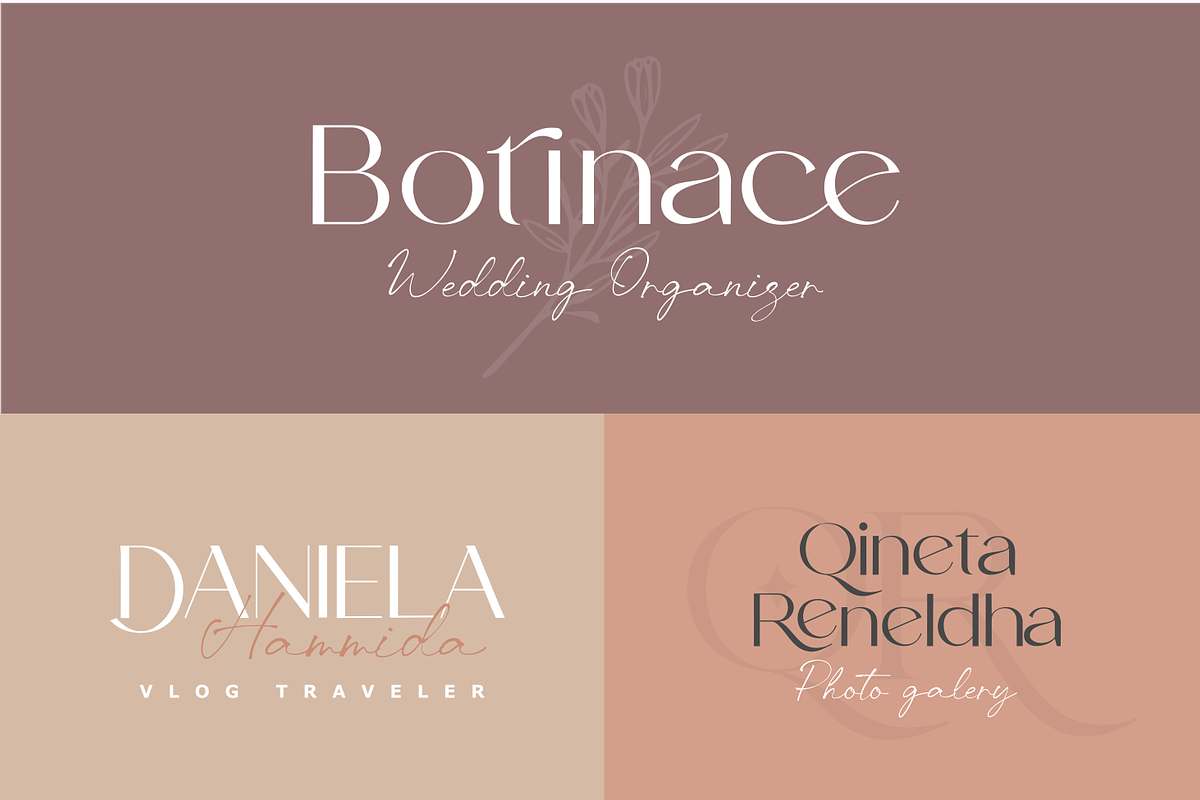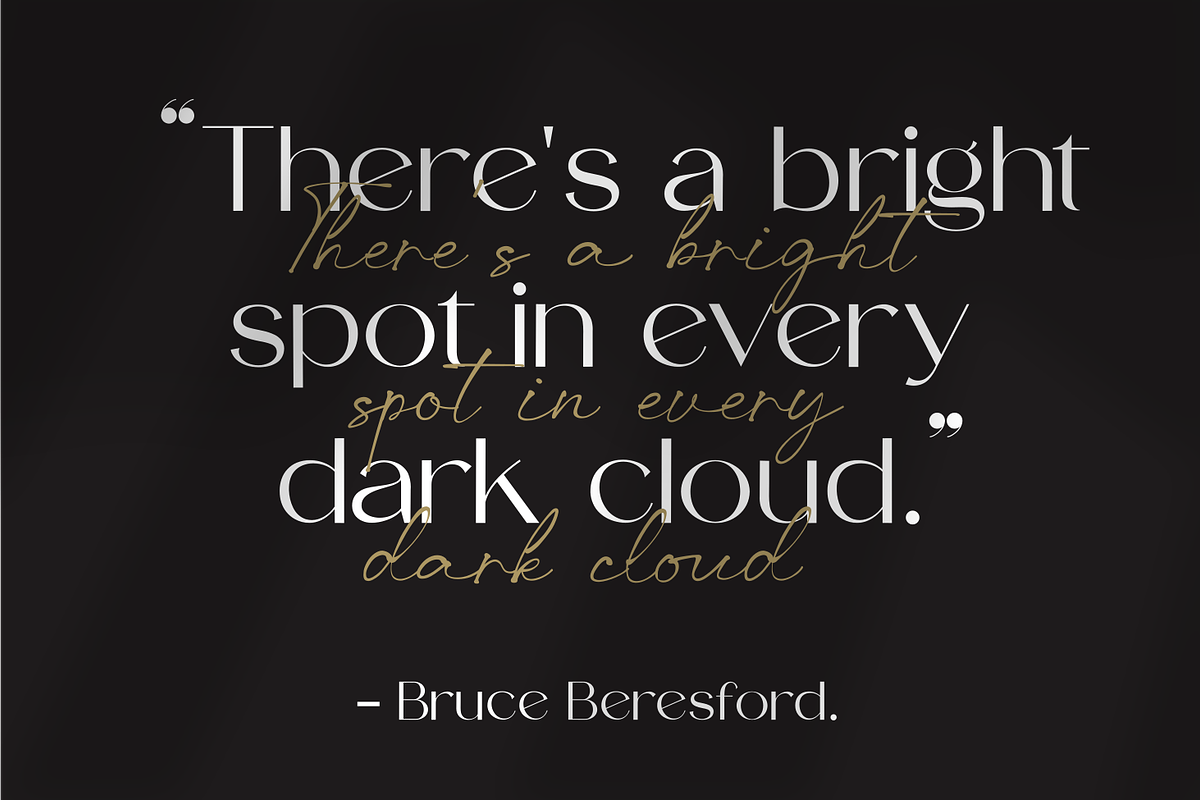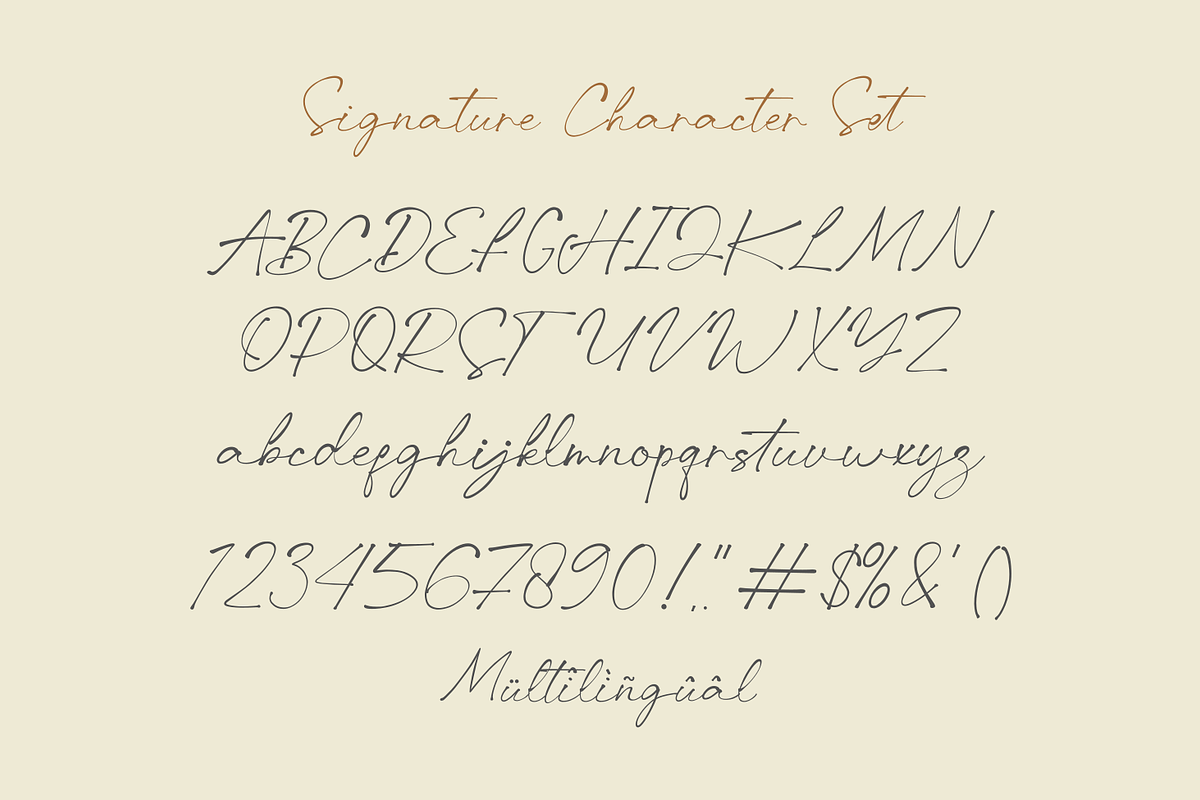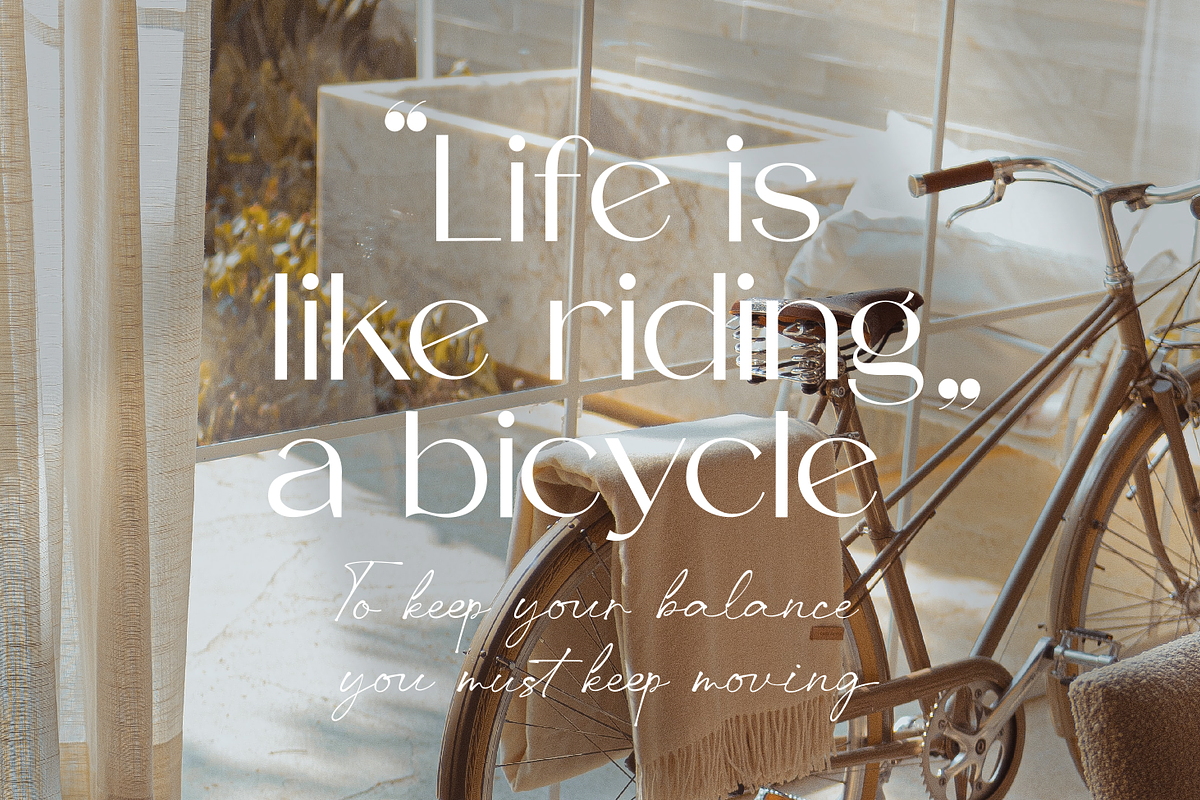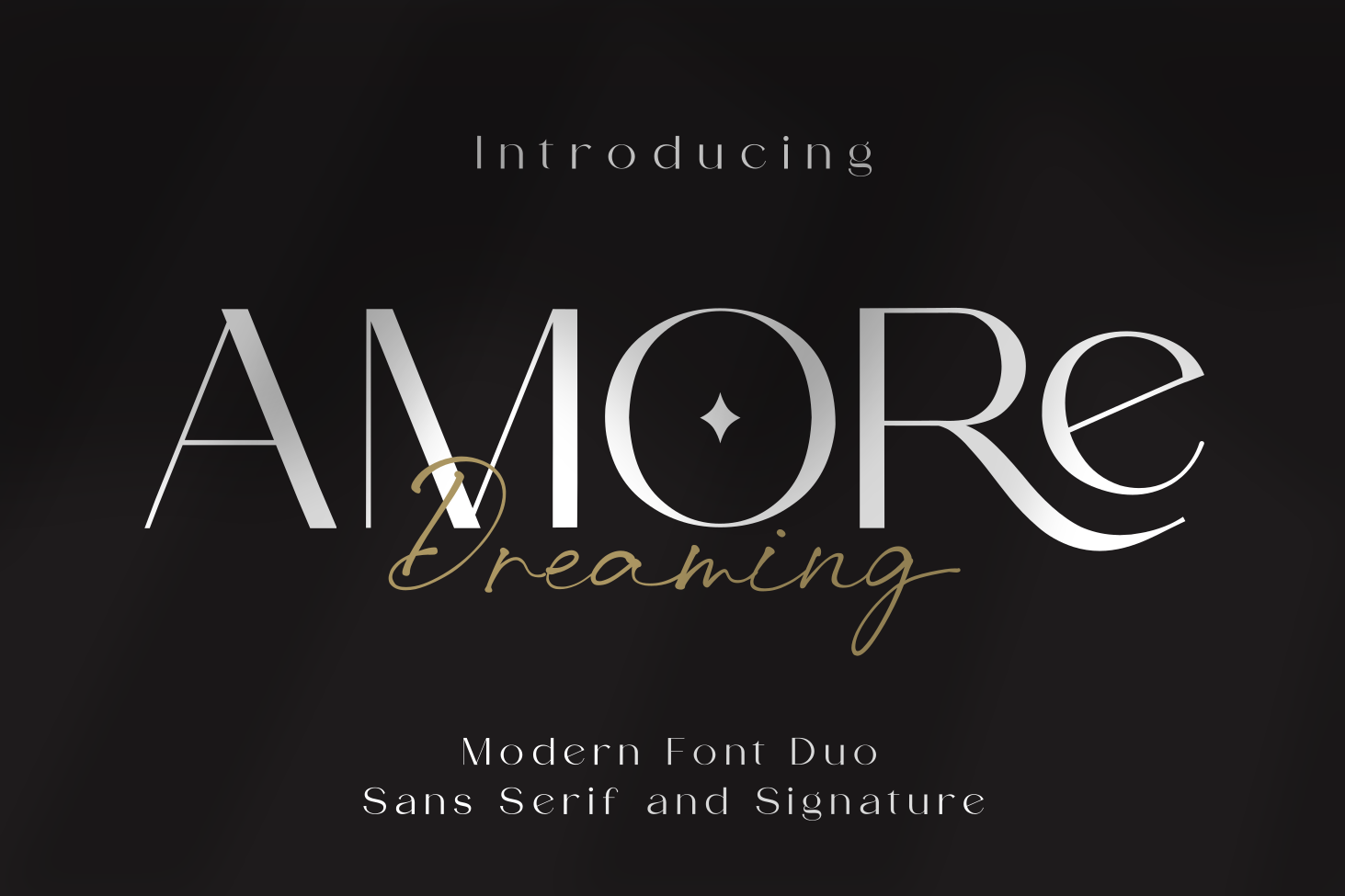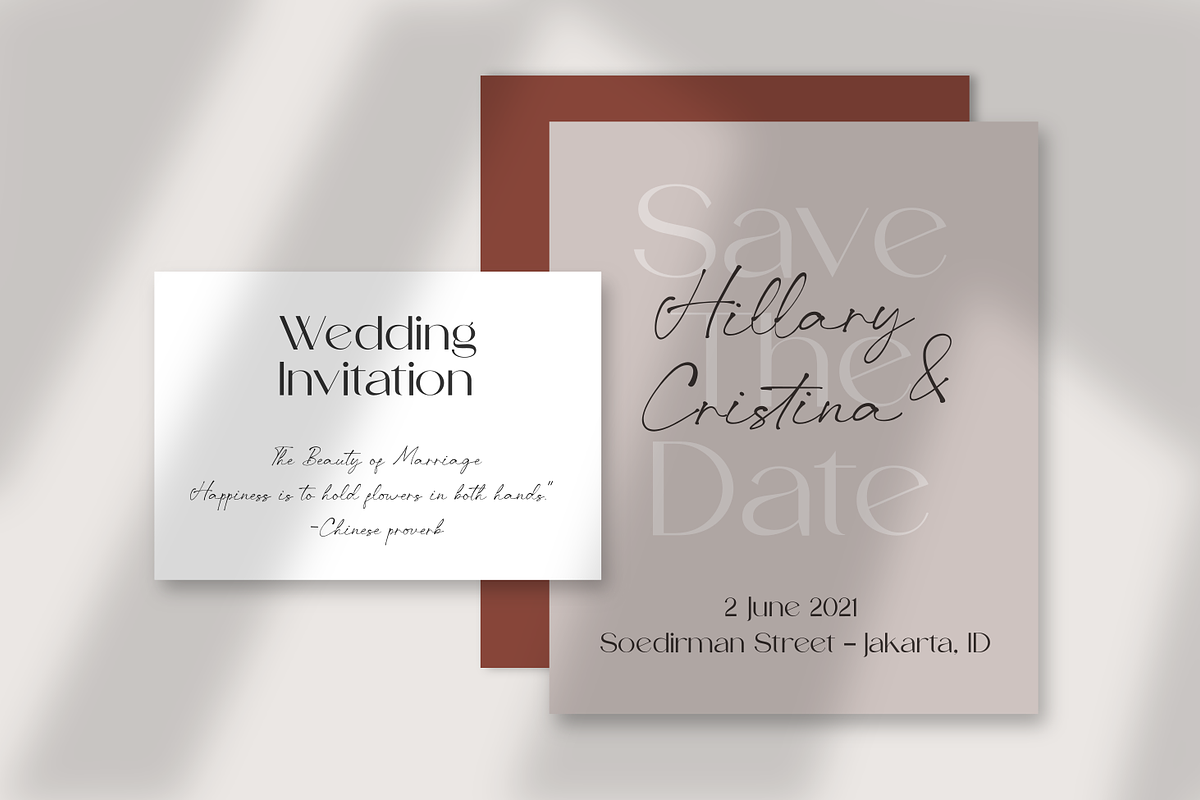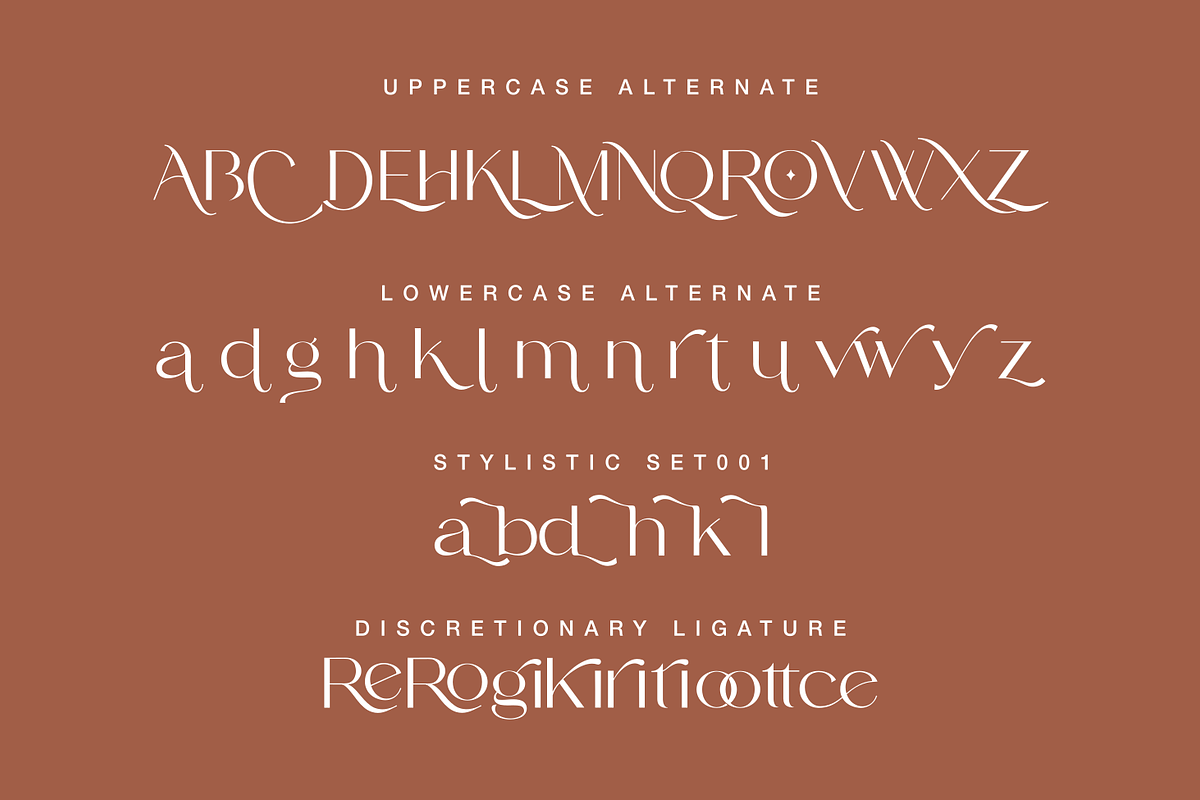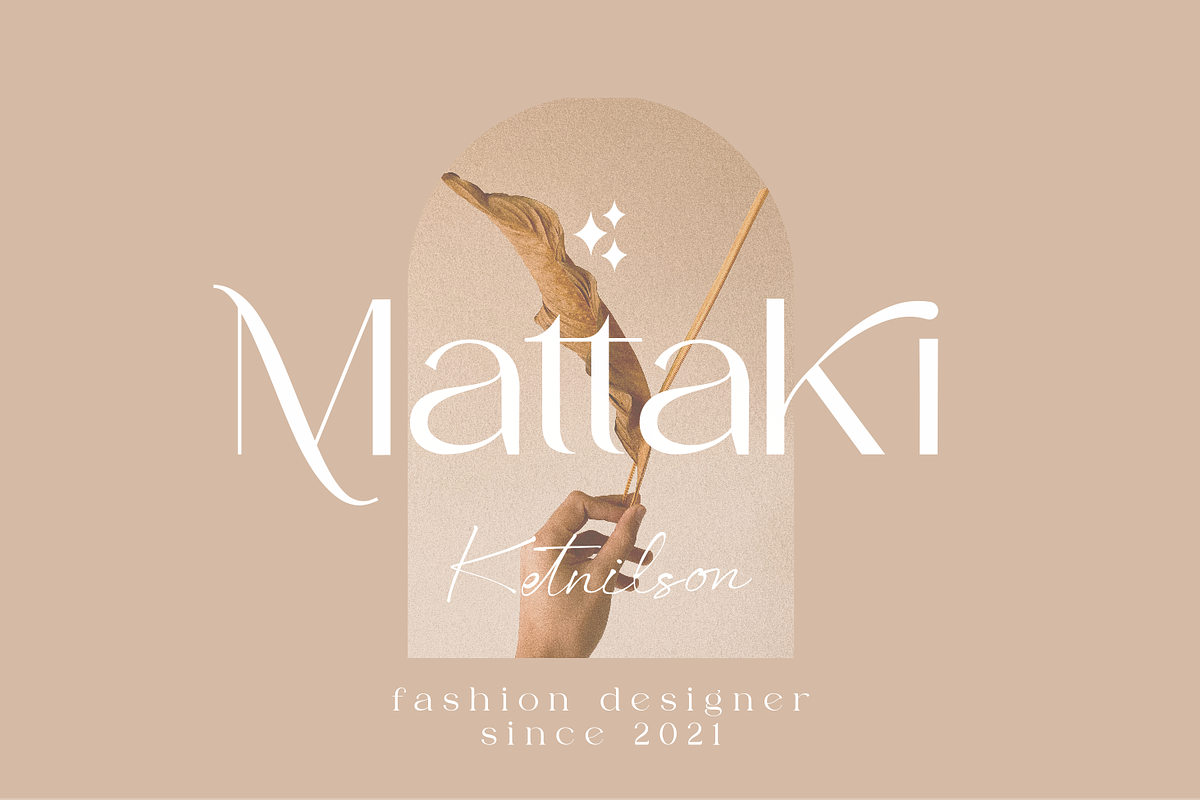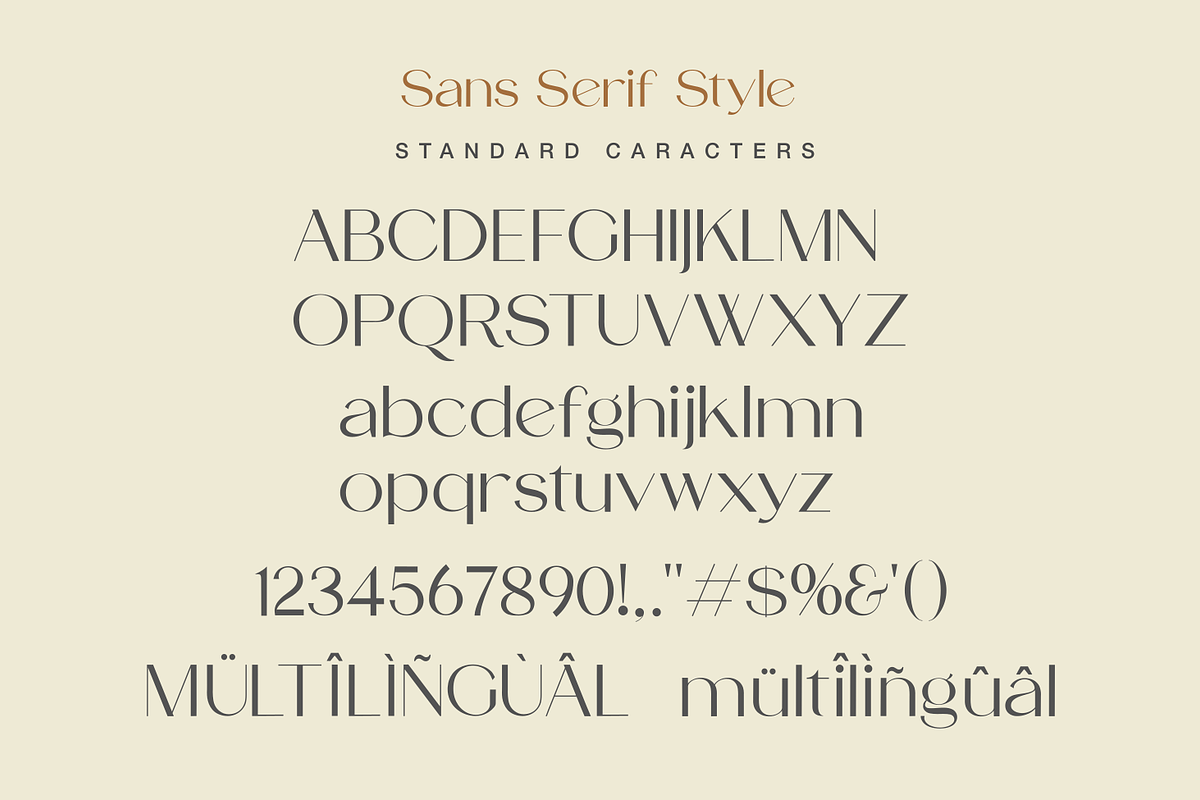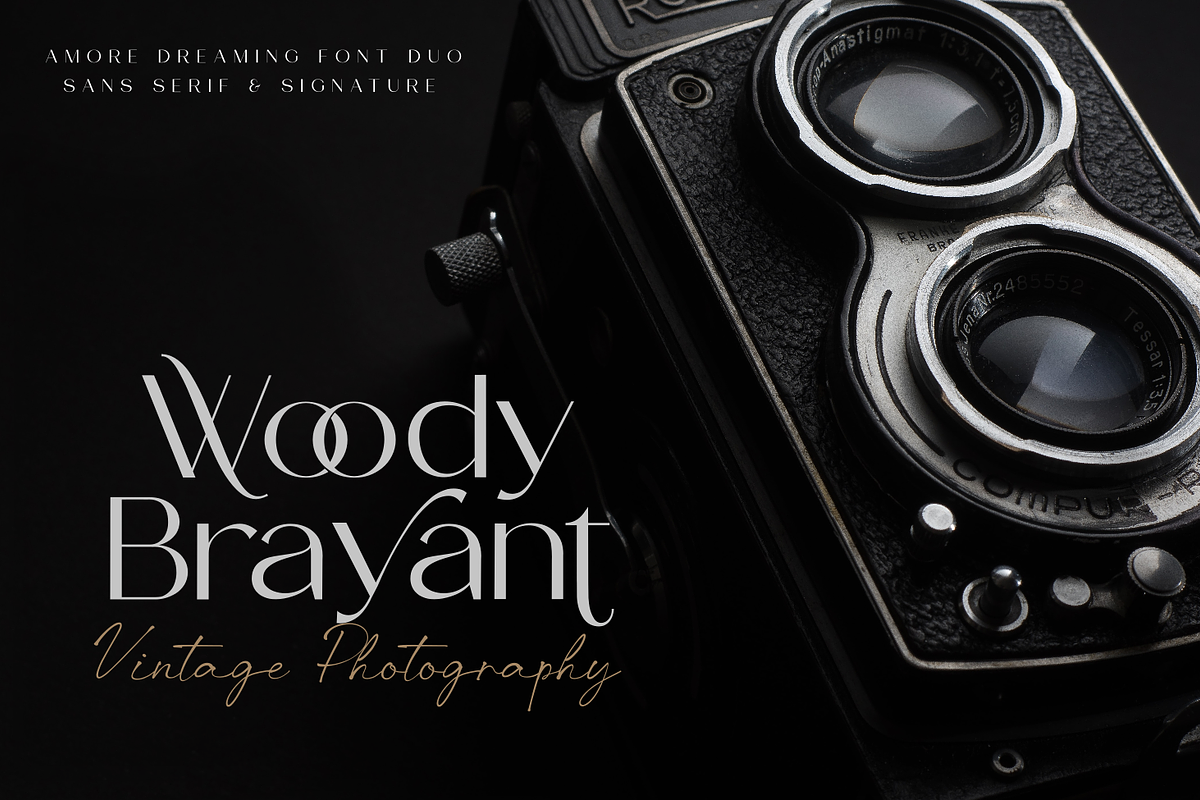
Amore Dreaming Font Duo
Amore Dreaming is a luxury font duo with a combination of elegant sans serif font and a signature ballpoint style, that look divine when paired together. Elevating them to the highest levels. Add this font to your favorite creative ideas and nthiotice how it makes them come alive! this font is great for your next creative projects such as watermark on photography, logo design, wedding, invitation, quotes, book cover, business card, and many other design project.